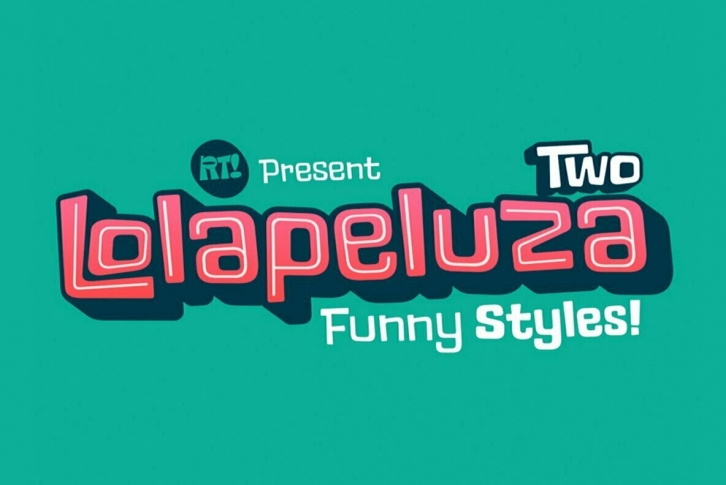
Inspired by the "Lollapalooza" logo. The intention was to design a cheerful, entertaining typography. Lolapeluza works perfectly for designs for children and young people. 17 variants are also included from Thin to the Black, Symbols and alternatives!